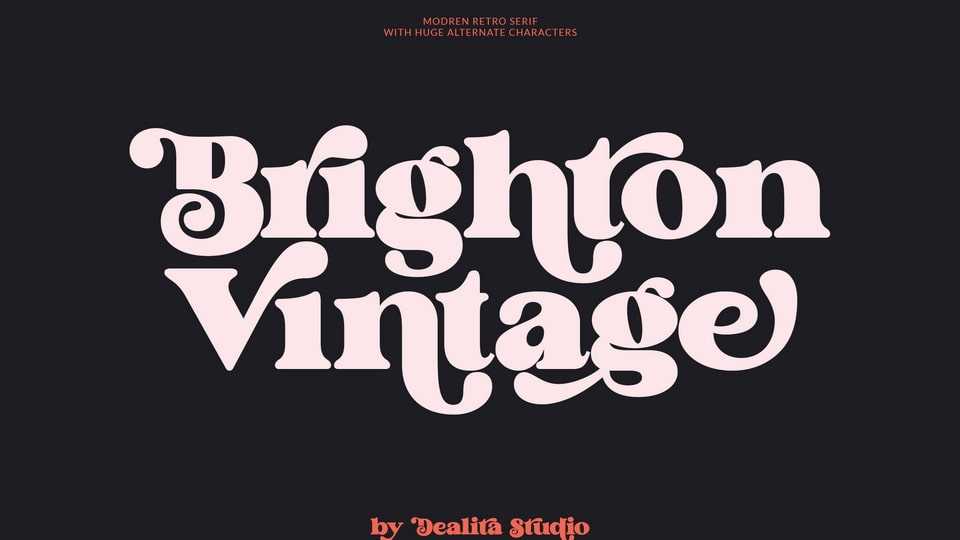
Download Brighton Vintage font, a stylish typeface that is both retro and bold. It’s thick curves give a 70s groovy vibe with the serifs bringing it slightly back to traditional.